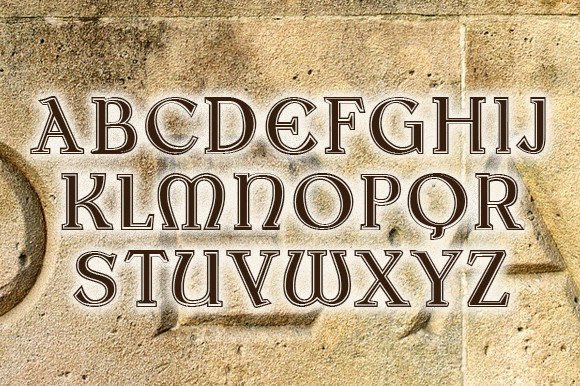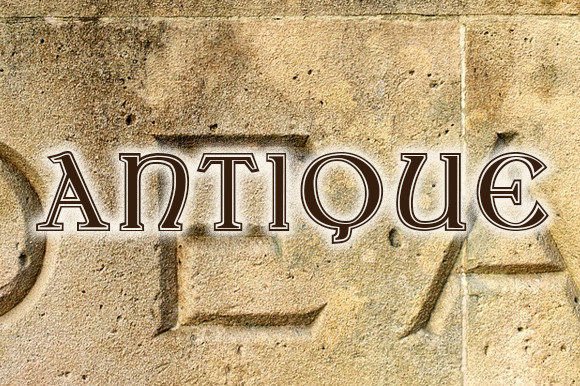
Introduction to Medieval Mystery Font
Medieval Mystery is a bold and thick lettered blackletter and Celtic font.
Key Features of Medieval Mystery Font